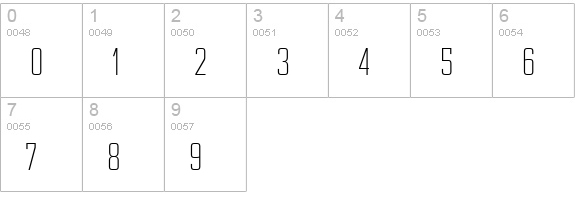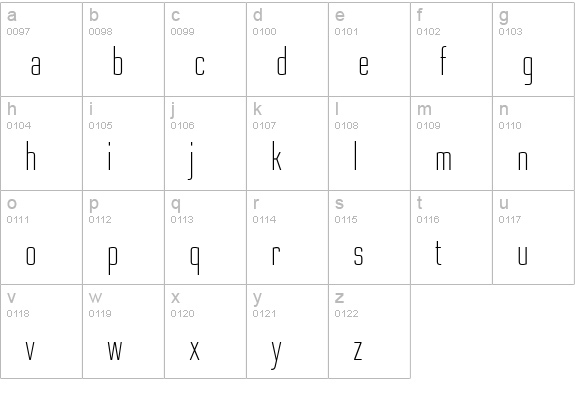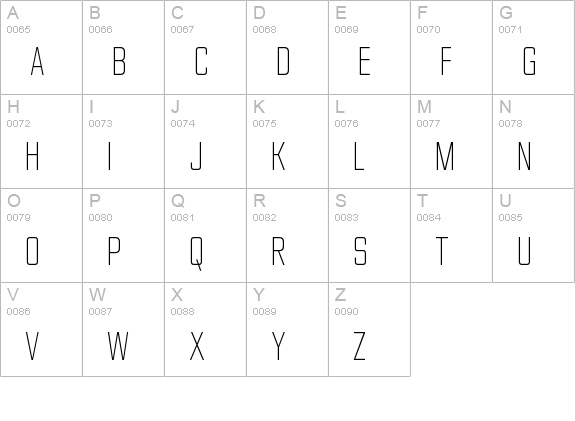
NesobriteCdLt-Regular Font Details
NesobriteCdLt-Regular is the standard, neutral variant in the NesobriteCdLt typeface family \xE2\x80\x94 well suited to general body text, paragraphs, and standard typographic work.
NesobriteCdLt-Regular is a modern and stylish font that exudes elegance and sophistication. With its clean lines and sleek appearance, this font is perfect for a wide range of design projects, from logos to branding to marketing materials. The balanced letterforms and subtle curves make NesobriteCdLt-Regular a versatile choice for both digital and print applications. The best part? NesobriteCdLt-Regular is available for free download at FontsMarket.com. Whether you're a professional designer looking for a new addition to your font library or a hobbyist looking to spruce up your projects, this font is sure to impress. Don't miss out on the opportunity to enhance your designs with the timeless appeal of NesobriteCdLt-Regular – download it for free today!